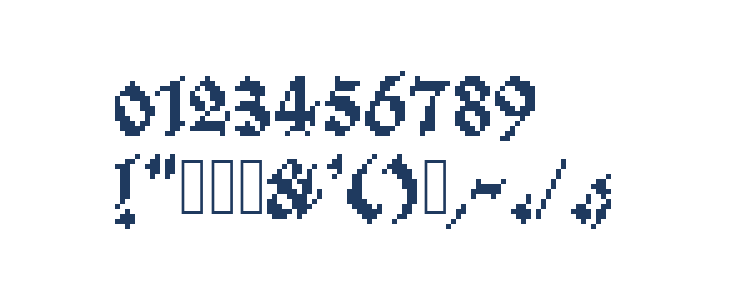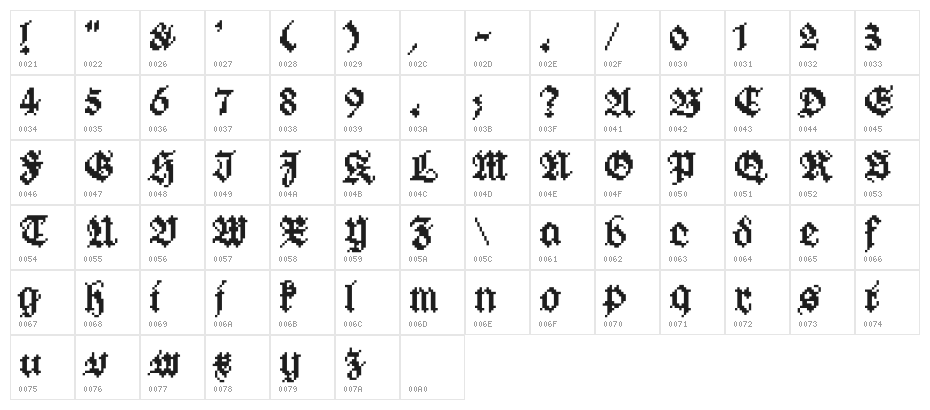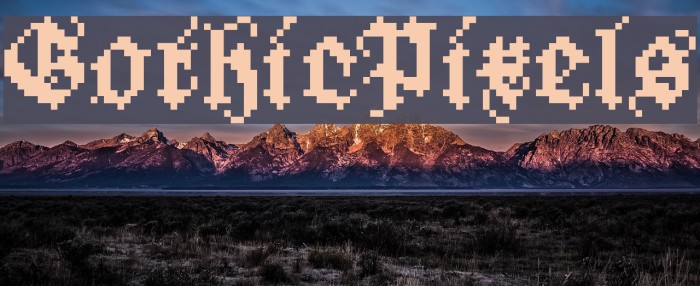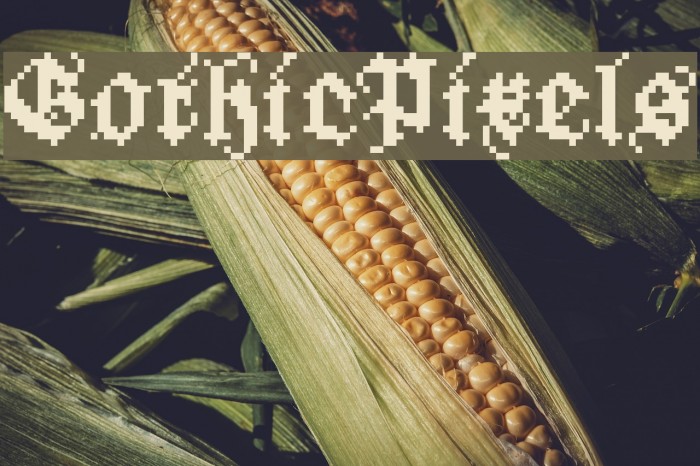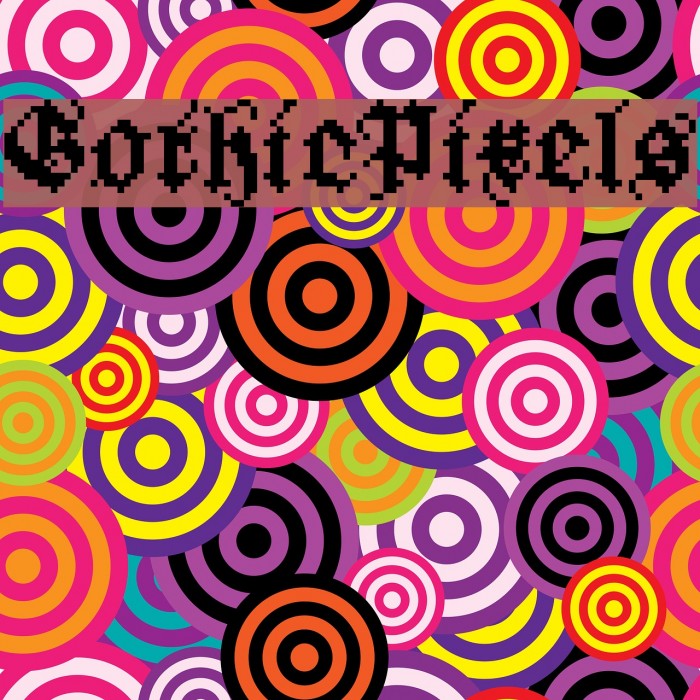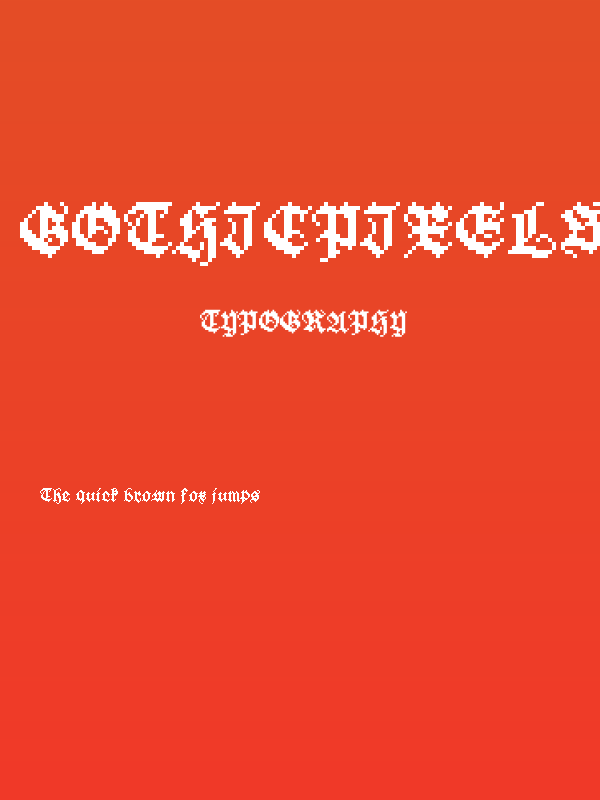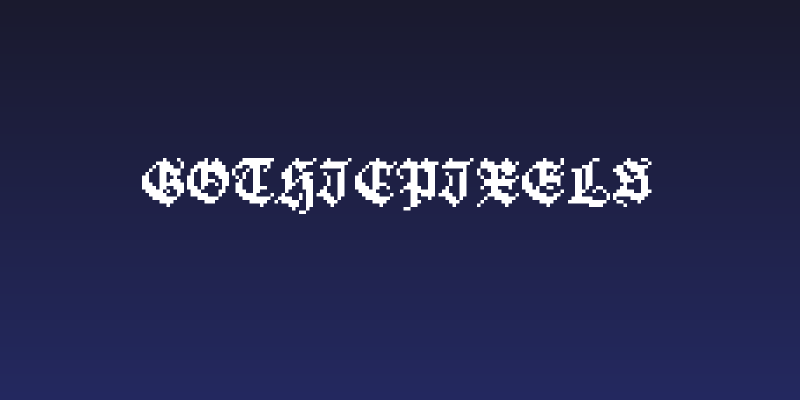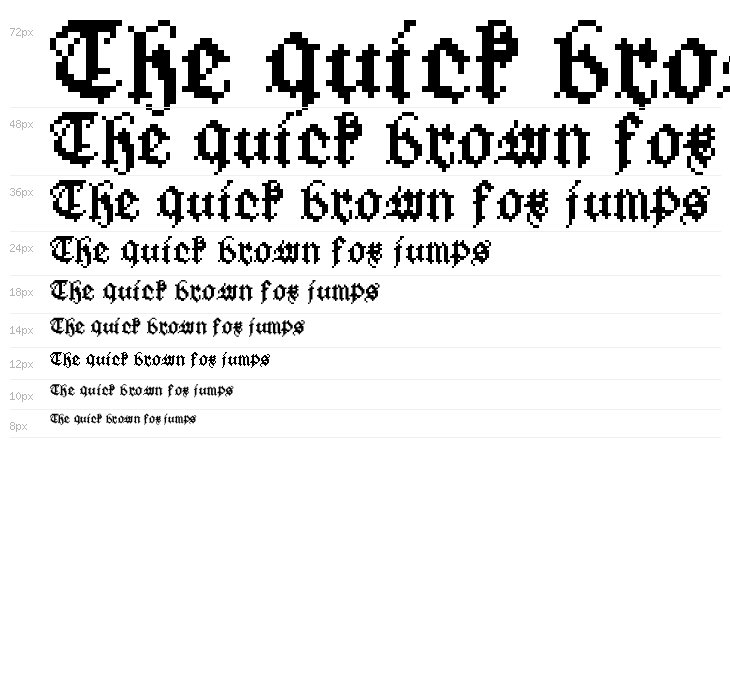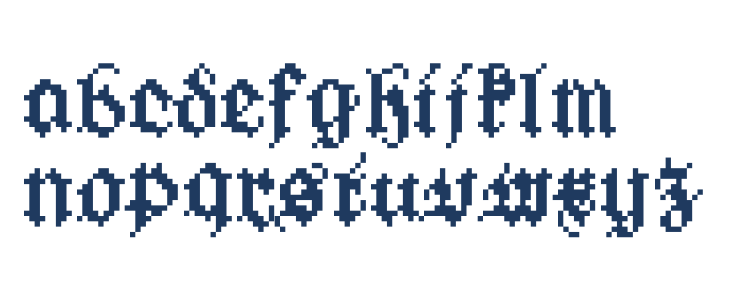
GothicPixels Font
GothicPixels Description
This font features a bold, pixelated Gothic style, reminiscent of medieval script with a modern twist. The characters are sharply defined with a blocky appearance, giving it a digital, retro vibe. The uppercase letters are ornate, with intricate details that mimic traditional blackletter forms. Lowercase letters maintain the same pixelated structure, ensuring consistency across the typeface. Numbers and special characters follow the same design principles, making them easily recognizable while maintaining the overall aesthetic. This font is ideal for projects that require a blend of historical and digital elements, offering a unique visual impact.
| Proposed Projects | Ideal for video game design, digital art projects, retro-themed posters, and branding that requires a unique, historical yet modern look. |